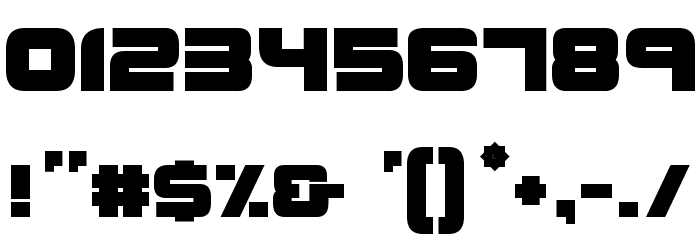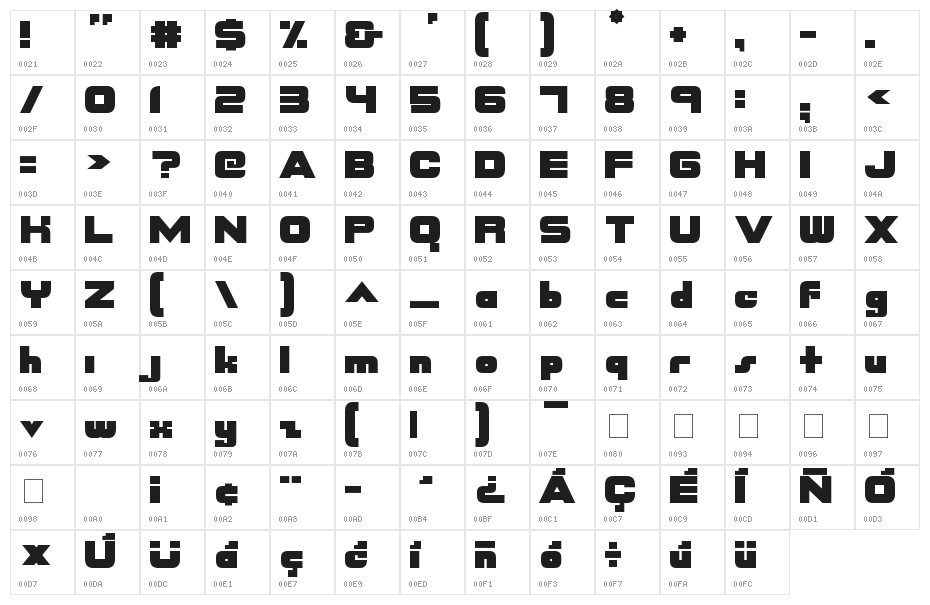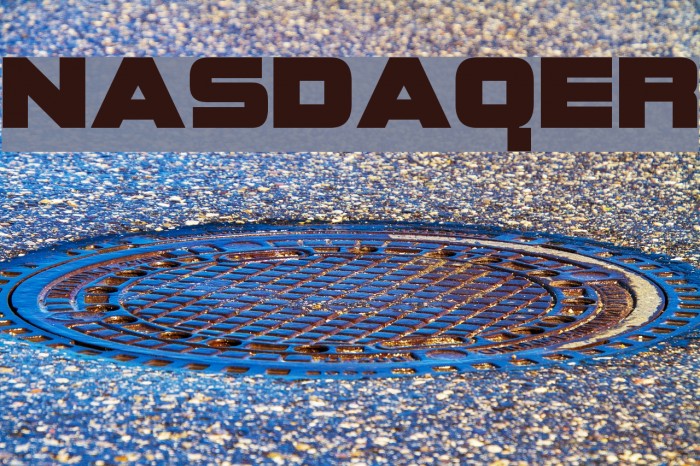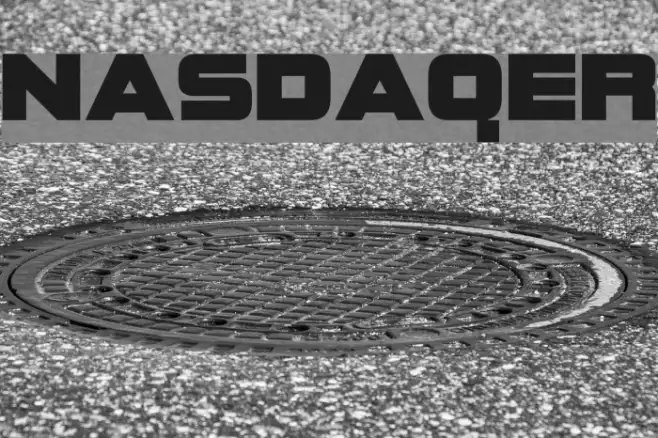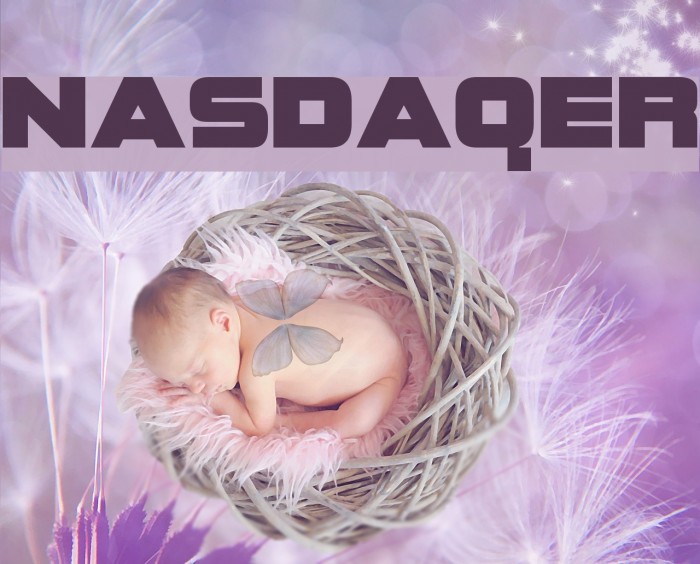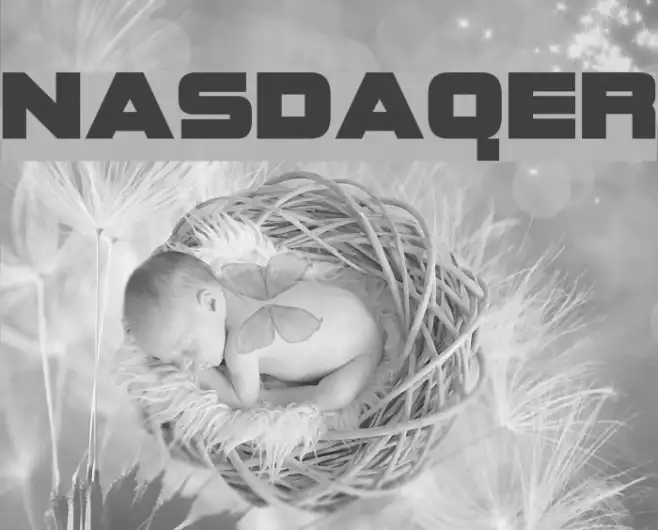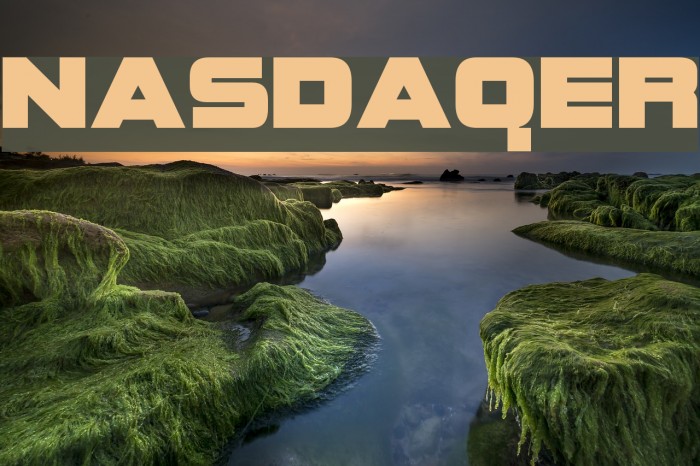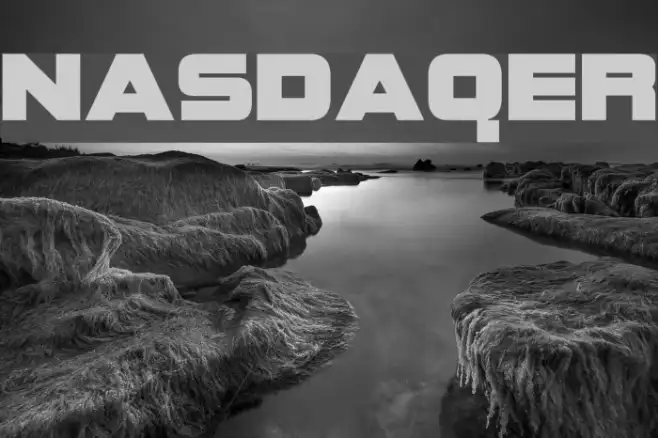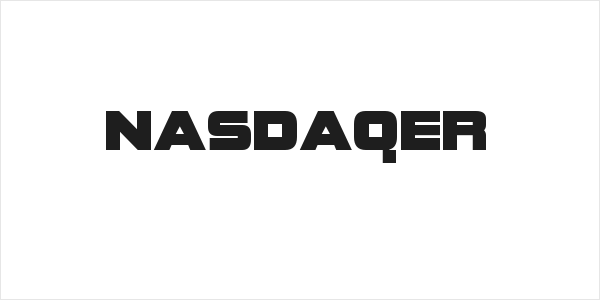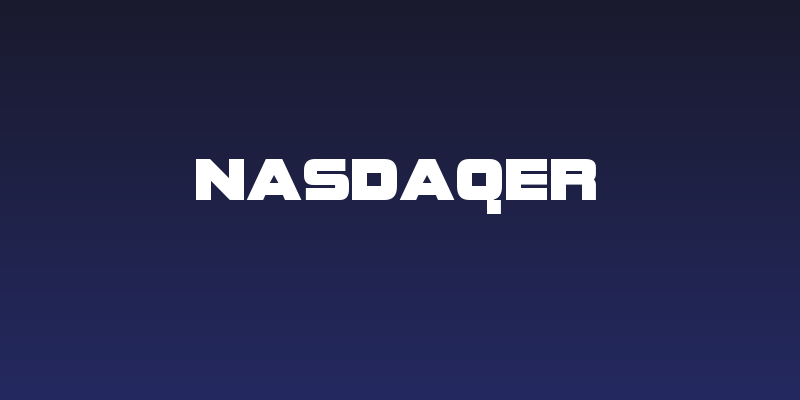
NASDAQER Font
NASDAQER Description
This font features a bold, geometric design with a strong presence and a modern aesthetic. The characters are blocky and robust, with uniform stroke widths that give it a cohesive and powerful look. The uppercase letters are particularly striking, with sharp angles and a solid structure. The lowercase letters maintain the same boldness, ensuring readability while adding a touch of uniqueness with their slightly rounded edges. Numbers and special characters are equally bold, making them stand out in any design. This font is ideal for projects that require a strong visual impact.